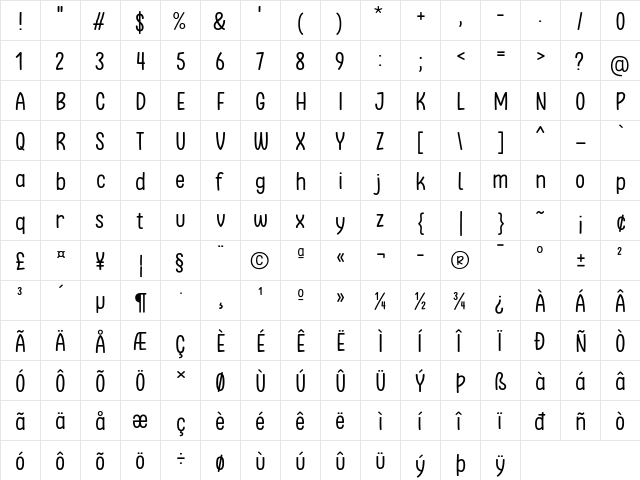
Clambake October Six Regular
| Foundry | 7NTypes |
| Designer | Situjuh Nazara |
Design Context for Clambake October Six Typeface
Clambake October Six is a composed and adaptable typeface that performs quietly and consistently across a wide range of design contexts.